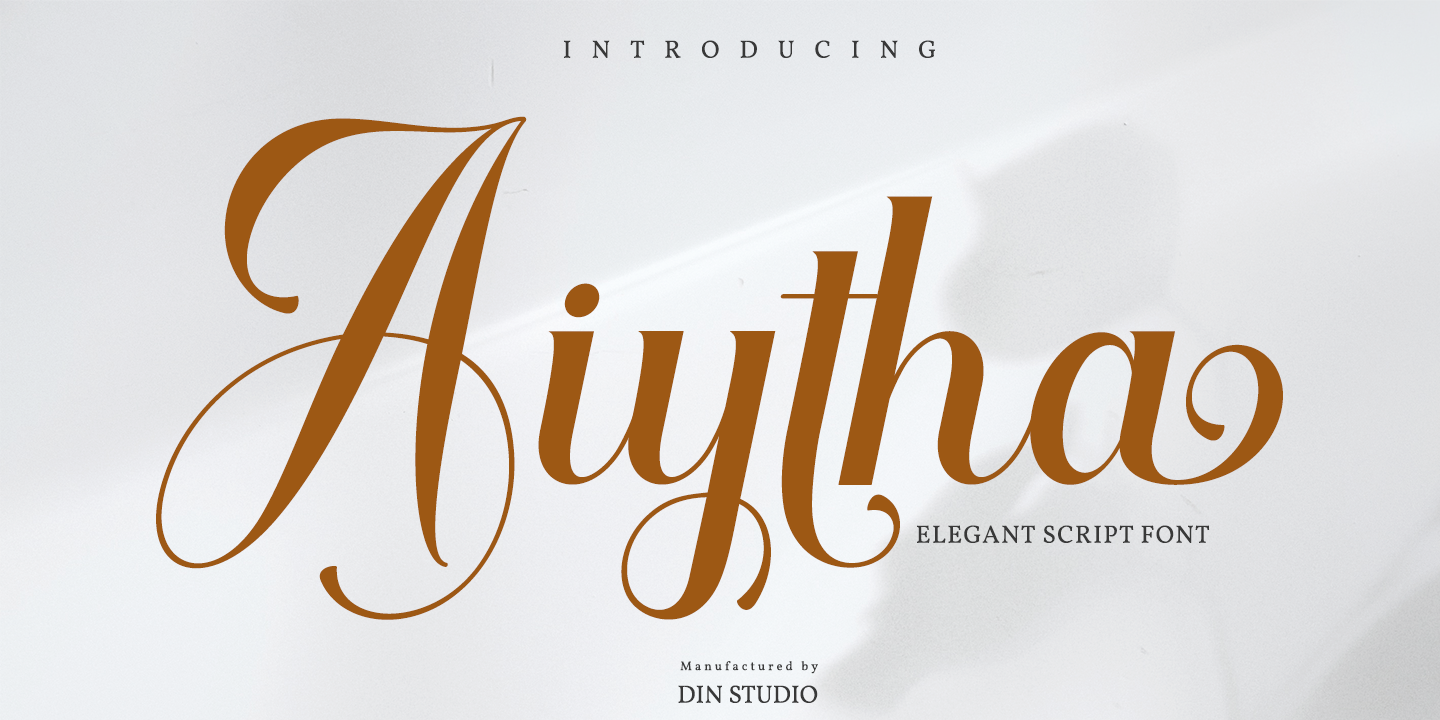
Aiytha Font excels in mystical spiritual branding, elegant wellness center materials, sophisticated yoga studio graphics, ethereal meditation retreat designs, graceful holistic healing promotions, serene spa treatments packaging, enchanting crystal shop signage, peaceful mindfulness workshop posters, divine feminine empowerment campaigns, and transcendent spiritual guidance materials.
Aiytha Font is exciting because it channels ancient wisdom and spiritual enlightenment through its divinely inspired letterforms that seem to flow with cosmic energy and celestial grace, creating an immediate connection to higher consciousness and inner peace. This transcendent typeface embodies the perfect harmony between earthly beauty and spiritual awakening, making it an essential tool for designers who understand that some messages must touch the soul and elevate the spirit while maintaining earthly elegance and visual sophistication.
The Aiytha Font family features a spiritual collection including Regular, Bold, Light, Script variations, Ethereal styles, Ornamental elements, Sacred geometry patterns, Flowing alternates, Mystical ligatures, and divine decorative flourishes, providing complete design enlightenment for any spiritual or wellness creative project.
Aiytha Font represents a breakthrough in spiritual typography, delivering transcendent visual impact for projects that celebrate inner wisdom, spiritual growth, and conscious living. Its distinctive sacred character structure makes it particularly effective for wellness brands seeking to establish a deeply meaningful connection with spiritually-minded audiences and conscious consumers.
The enlightening appeal of Aiytha Font makes it ideal for spiritual centers, wellness practitioners, yoga instructors, meditation teachers, holistic healers, and conscious lifestyle brands requiring authentic spiritual communication. Its divine letterforms ensure memorable brand recognition among spiritually-seeking and wellness-focused audiences.
Aiytha Font's advanced features include contextual spiritual enhancements, sacred ligatures, mystical alternates, and consciousness-expanding styling options that deepen the font's spiritual character. These enlightened elements enable designers to create compelling layouts that resonate with spiritually-aware audiences and conscious living enthusiasts.
The versatility of Aiytha Font extends gracefully across spiritual applications, proving equally effective for wellness websites, meditation mobile apps, spiritual social media campaigns, consciousness-raising digital content, and enlightening online publications. Its scalable design maintains spiritual elegance at any size.
For design professionals serving the spiritual community, Aiytha Font delivers the perfect combination of divine beauty and earthly functionality. Its spiritual appeal combined with technical excellence makes it an indispensable resource for creating memorable visual communications that capture the essence of spiritual awakening and conscious living in today's mindfulness-embracing marketplace.